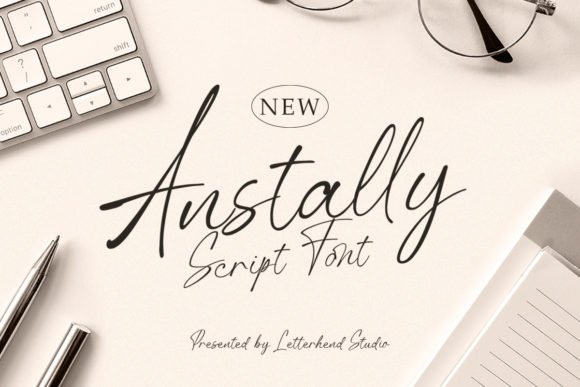
The Perfect Brushstroke: Unleashing the Magic of Anstally Script Font
Have you ever been stuck in front of your design software, trying to come up with the perfect logo or quote for your client? The blank page stares back at you, and you’re not sure where to start. That’s where the Anstally Script Font comes in – a beautiful, timeless handwritten font that can breathe life into your designs.
With its unique, handcrafted feel, Anstally Script Font is the perfect choice for creating eye-catching logos, branding, and quotes that truly stand out. Whether you’re a seasoned designer or just starting out, this font is a valuable addition to your toolkit. Its versatility and elegance make it an ideal choice for a wide range of projects, from wedding invitations to product labels.
Anstally Script Font Key Features
- Font Family: Anstally Script
- Unique Characteristics: Handwritten, elegant, and cursive script font with high legibility and expressiveness, ideal for creative and artistic purposes.
Anstally Script Font Review
Overall, I think Anstally Script is a beautiful font. It’s perfect for creating elegant, handwritten text and works well for logos, invitations, and other design projects that require a touch of sophistication.
The font has a ✨ unique, cursive feel that’s both modern and timeless. It’s great for use in titles, headings, and even body text. The font’s flowing lines and subtle connections between letters create a sense of movement and fluidity that’s really engaging.
- ✨ Elegant, handwritten feel
- ✨ Perfect for logos, invitations, and other design projects
- ✨ Works well in titles, headings, and body text
- ✨ Unique, cursive feel that’s both modern and timeless
- ⚠️ Limited to uppercase and lowercase letters, with no additional characters or symbols
- ⚠️ May be difficult to read in certain font sizes or on lower-resolution screens
- ⚠️ Not suitable for use in large blocks of text, as it can become overwhelming
Overall, I think Anstally Script is a beautiful font that’s perfect for designers looking to add a touch of elegance to their projects. While it has some limitations, it’s still a great choice for many design applications.
Tips for Getting the Most Out of Anstally Script Font
For the best results, use Anstally Script Font in conjunction with other elegant fonts, such as serif or sans-serif fonts. Experiment with different font sizes and colors to create a visually appealing design. Consider using Anstally Script Font for titles, headings, or quotes to add a touch of sophistication to your design.
Anstally Script Font is perfect for:
- Quotes and inspirational graphics
- Magazine and newspaper headlines
Alternatives to Anstally Script Font
Carolyna Pro is a beautiful, elegant script font that is perfect for creating a sophisticated and luxurious look. It is ideal for use in branding, advertising, and packaging design. Carolyna Pro has a more refined and polished look compared to Anstally Script Font, making it a great choice for high-end designs.
Alex Brush is a handwritten script font that is great for creating a personal and emotional connection with the audience. It is perfect for use in wedding invitations, baby announcements, and other special occasions. Alex Brush has a more casual and playful look compared to Anstally Script Font, making it a great choice for designs that require a touch of whimsy.
Great Vibes is a modern script font that is perfect for creating a fun and energetic look. It is ideal for use in social media graphics, event invitations, and other designs that require a bold and playful feel. Great Vibes has a more dynamic and expressive look compared to Anstally Script Font, making it a great choice for designs that require a lot of movement and energy.
Dancing Script is a elegant and sophisticated script font that is perfect for creating a luxurious and high-end look. It is ideal for use in branding, advertising, and packaging design. Dancing Script has a more refined and polished look compared to Anstally Script Font, making it a great choice for designs that require a touch of sophistication.